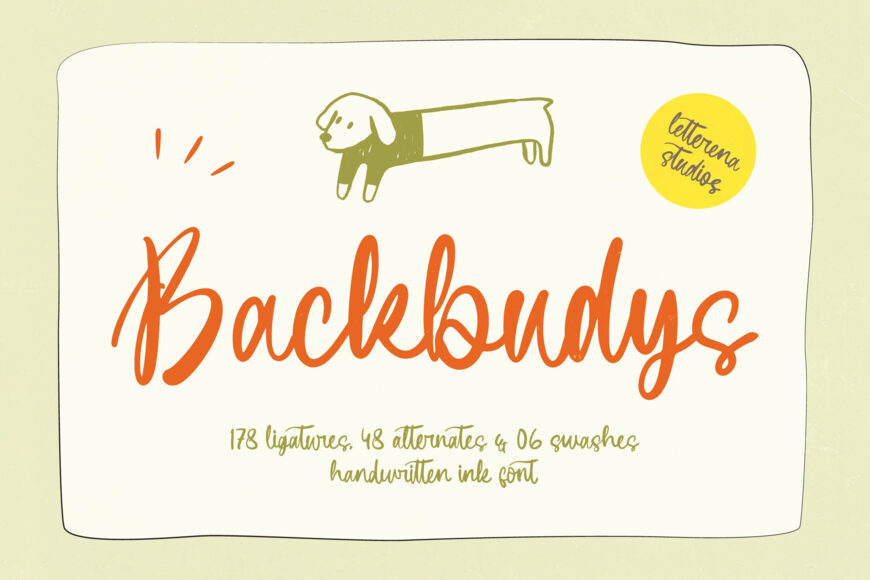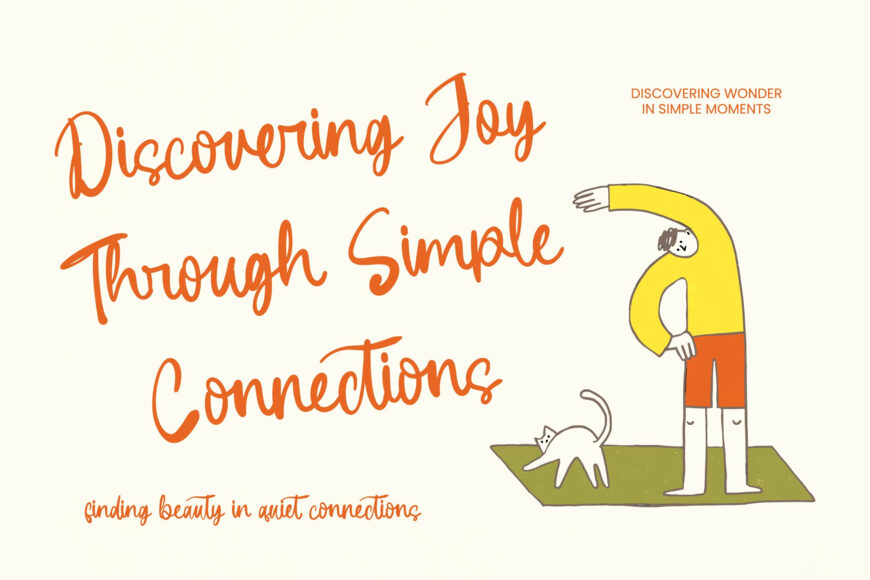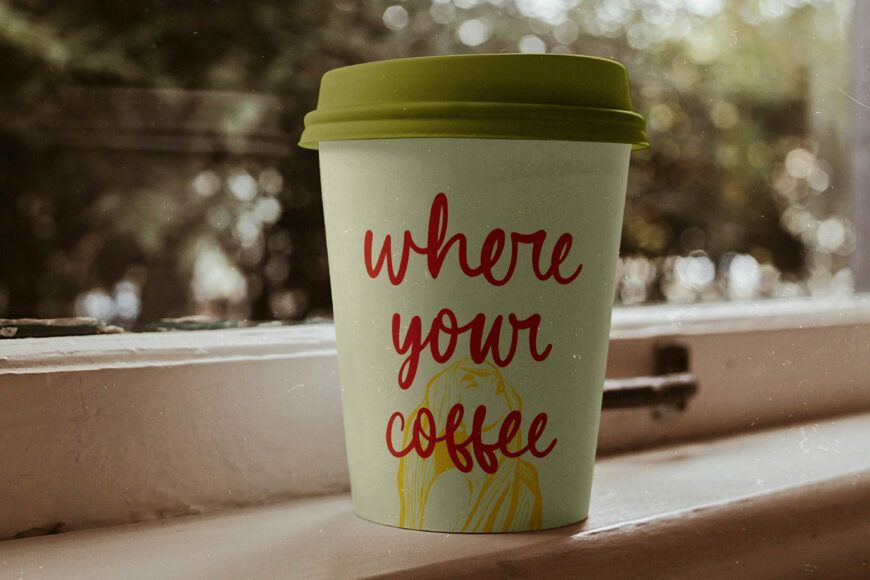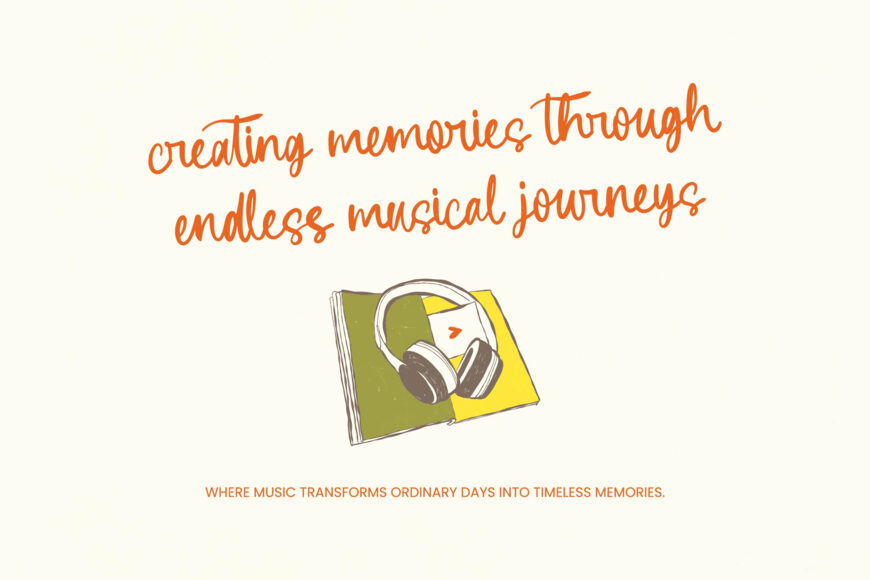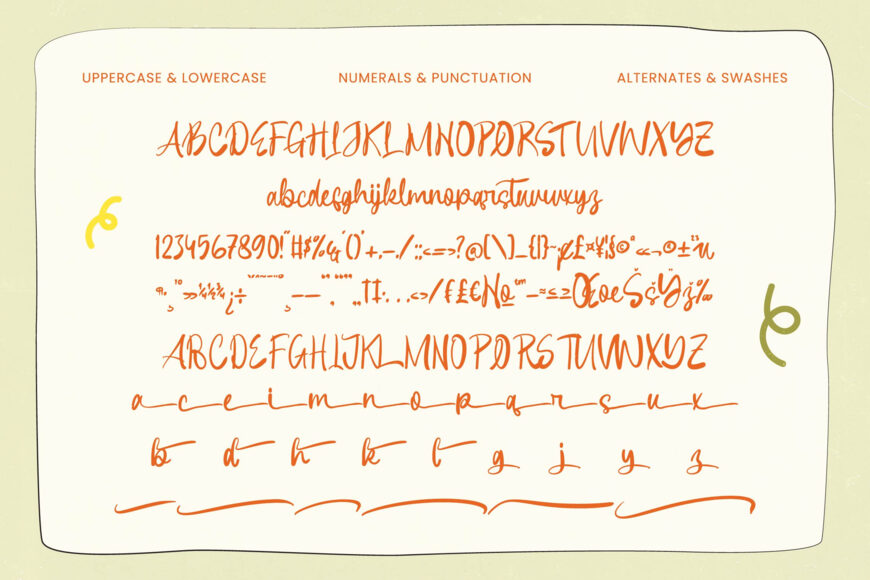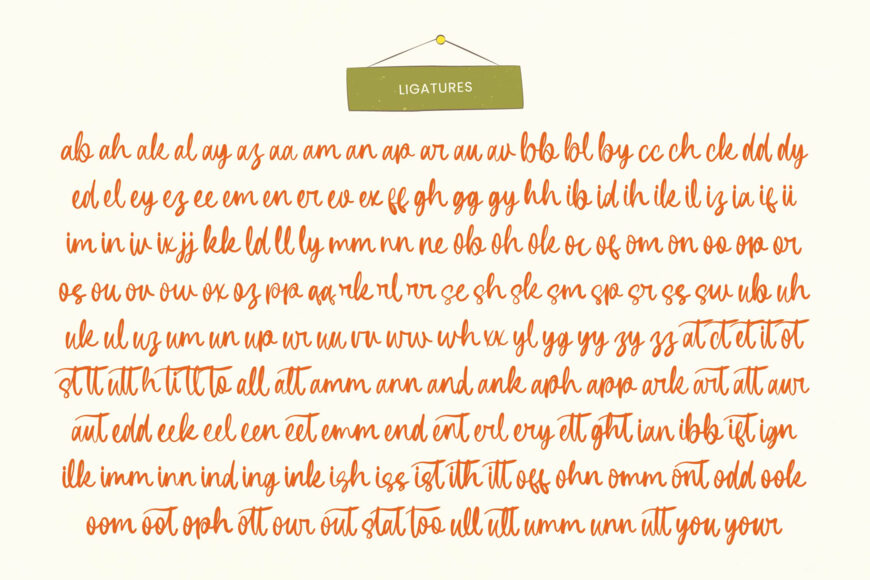
Give your designs an authentic, handwritten feel with Backbudys, an expressive ink-style script font inspired by fluid pen strokes. Its graceful curves and balanced rhythm add personality to branding, packaging, editorial layouts, invitations, social media graphics, and artisanal labels.
Backbudys includes 178 ligatures and 48 alternates, offering plenty of flexibility for creating distinctive lettering. Extensive multilingual support makes it suitable for international projects while maintaining a polished, natural appearance across languages.